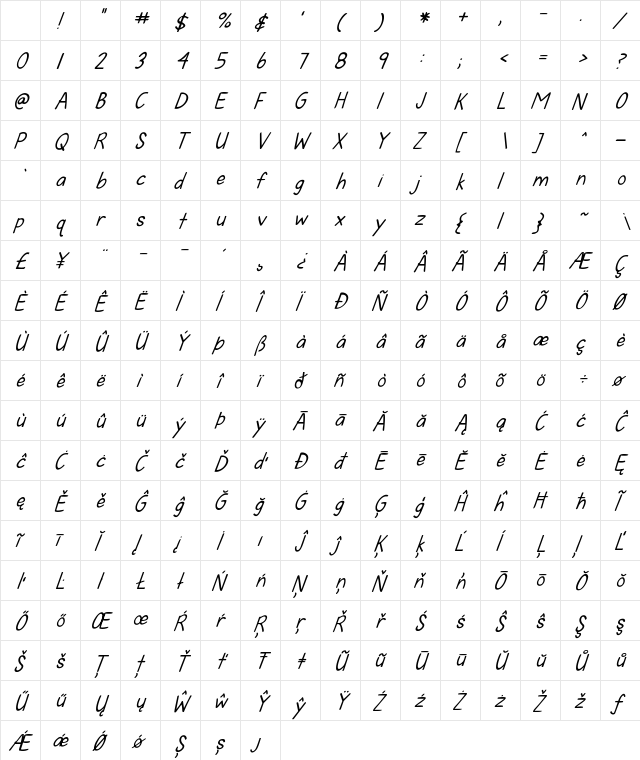
Complete KG Fall For You Italic glyph index. Displaying only characters natively supported by KG Fall For You Italic font.
KG Fall For You is a composed and adaptable typeface that performs quietly and consistently across a wide range of design contexts. The slanted form adds forward momentum and visual energy.
Pro Tip: Use KG Fall For You for emphasis, pull quotes, and subheadings where its slanted energy can add rhythm to the layout.